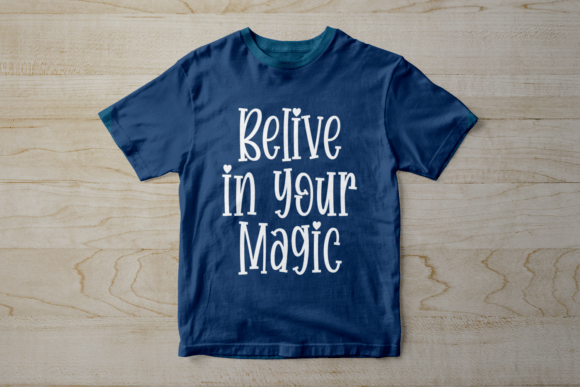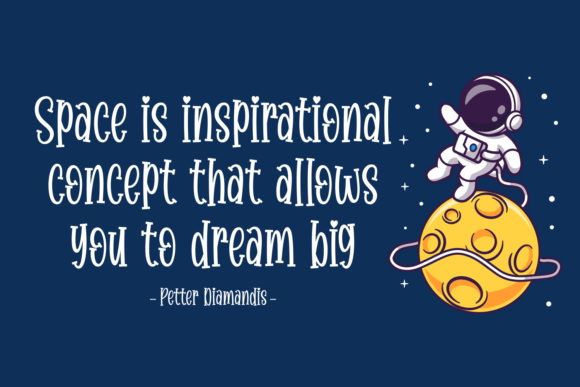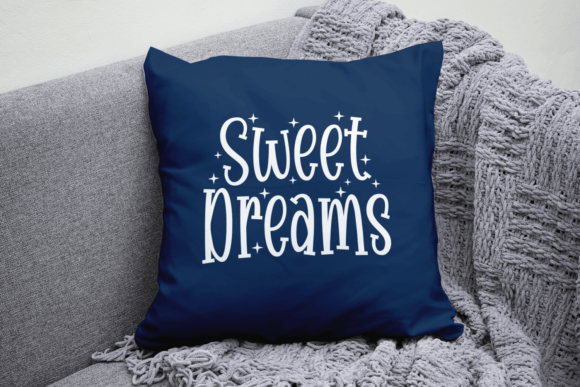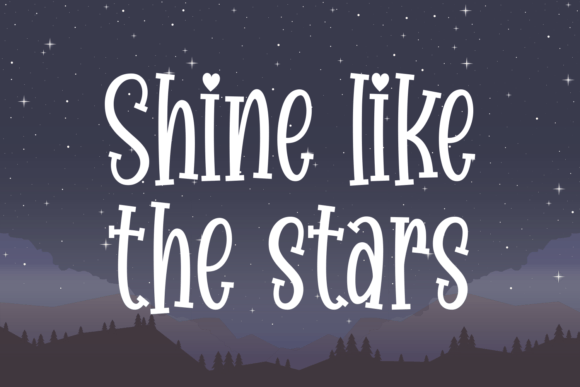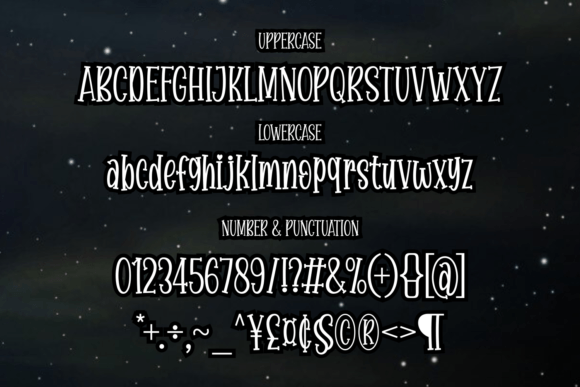
The Magical World of Beautiful Moonlight Font
Have you ever been in the middle of a design project, and suddenly, the font just isn’t cooperating? I recall a particularly frustrating evening when I was working on a whimsical birthday invitation for a client’s child. The font I had chosen was just not delivering the playful, dreamy vibe I was going for. That’s when I stumbled upon the Beautiful Moonlight Font. It was like a ray of moonlight broke through the clouds, illuminating my design with its magical, handwritten charm.
A Personal Review of Beautiful Moonlight Font
As a designer, I’m always on the lookout for fonts that can add a touch of personality to my projects. Beautiful Moonlight Font has quickly become one of my go-tos, and here’s why:
- ✨ Playful and Dreamy: This font embodies the perfect blend of whimsy and elegance, making it ideal for projects that require a touch of magic.
- ✅ Versatile: From invitations and greeting cards to creative designs and branding, Beautiful Moonlight Font adapts seamlessly to various design needs.
- 💫 Easy to Read: Despite its playful nature, the font remains clear and legible, even at smaller sizes.
While Beautiful Moonlight Font is a stunning addition to any design, there are a few minor considerations to keep in mind:
- 🤔 Limited Use in Body Text: Due to its playful and cursive nature, Beautiful Moonlight Font might not be the best choice for lengthy body text. It’s perfect for headings, titles, and short paragraphs, though!
The Backstory Behind Beautiful Moonlight Font
Beautiful Moonlight Font was crafted with the intention of capturing the whimsical essence of a moonlit night. Its creator aimed to design a font that would bring a sense of wonder and playfulness to any project. While the real story behind the font’s creation might be shrouded in mystery, its magical appeal is undeniable.
| Font Name | Beautiful Moonlight Font |
| Author | Rydmaker (7NTypes) |
| What makes Beautiful Moonlight Font unique? | Its playful, handwritten style combined with elegant lines and curves gives it a unique charm that’s hard to find in other fonts. |
| Is Beautiful Moonlight Font suitable for body text? | While it’s primarily designed for headings and titles, it can be used for short paragraphs. For longer texts, a more traditional font might be more readable. |
| Does Beautiful Moonlight Font support OpenType features? | Yes, it does. This allows for a range of stylistic alternates and glyphs, enhancing its versatility. |